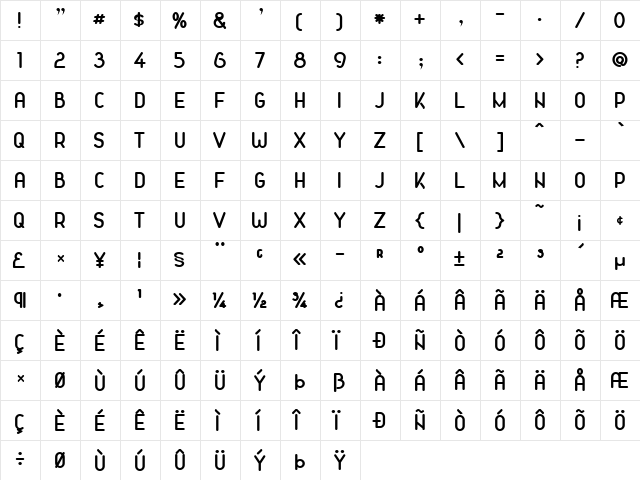
ZDesignerNew_CapsDemo Normal
Design Context for ZDesignerNew_CapsDemo Typeface
ZDesignerNew_CapsDemo offers clean, dependable letterforms without strong stylistic allegiance, making it a practical choice for designers who need flexibility.